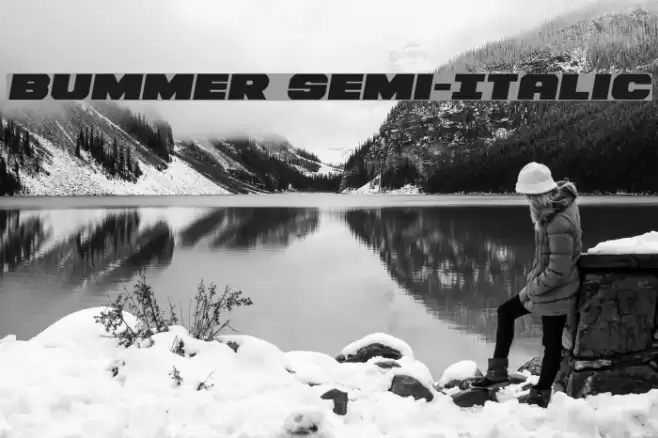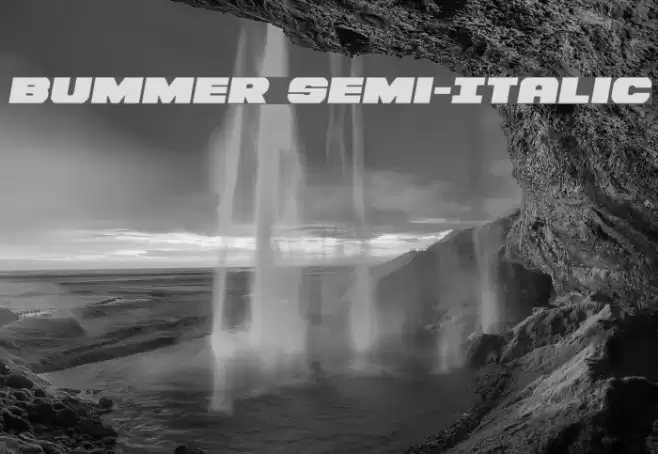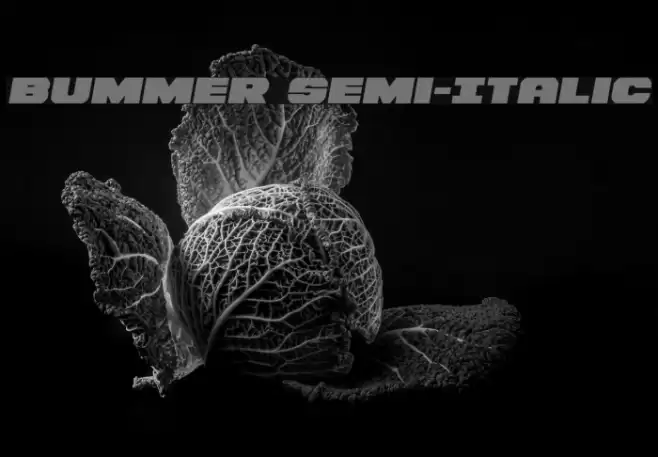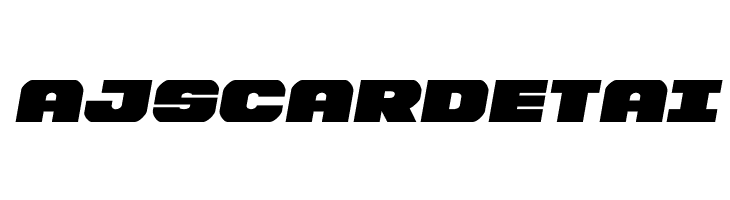
Bummer Semi-Italic Font
Bummer Semi-Italic Description
This font features a bold and dynamic style with a semi-italic slant, giving it a sense of motion and energy. The characters are robust and heavily weighted, making them stand out prominently. The design includes sharp angles and clean lines, contributing to a modern and assertive appearance. The uppercase letters are particularly striking, with a strong presence that commands attention. The numerals and special characters maintain the same boldness and angularity, ensuring consistency throughout the typeface. This font is ideal for projects that require a bold statement and a contemporary edge.
A bold, semi-italic font with sharp angles and a modern, dynamic style from Uncategorized fonts.
- Proposed Projects: Ideal for sports branding, action movie posters, dynamic logos, and attention-grabbing headlines.